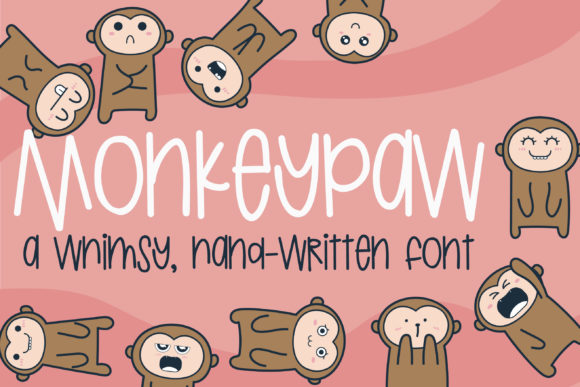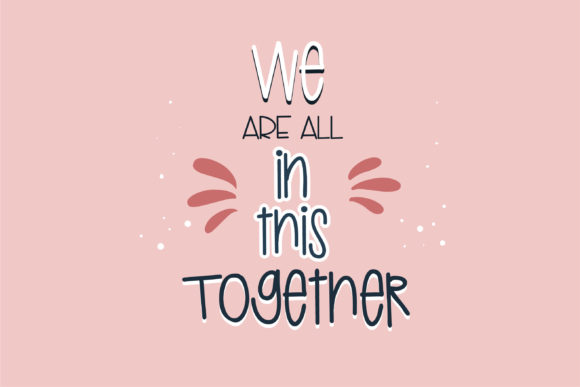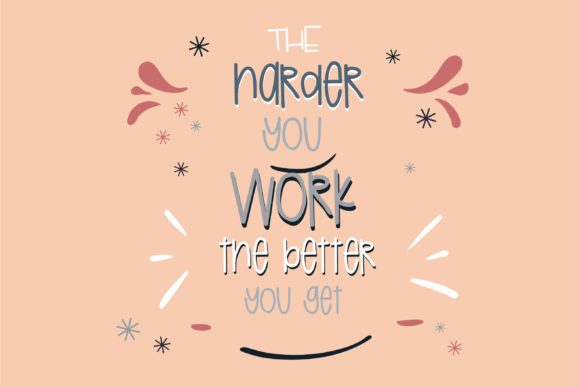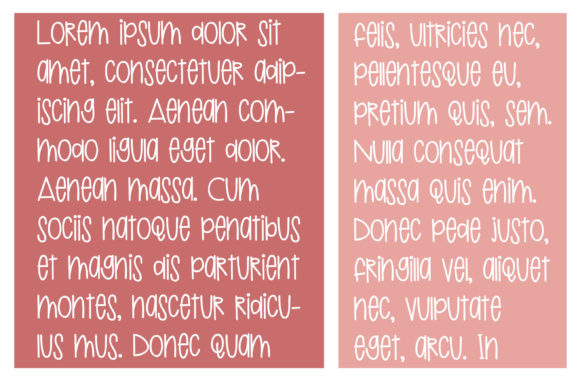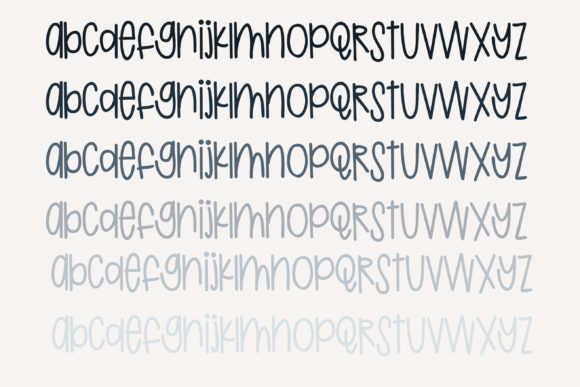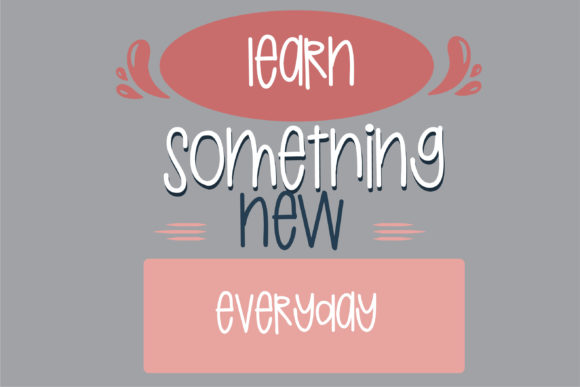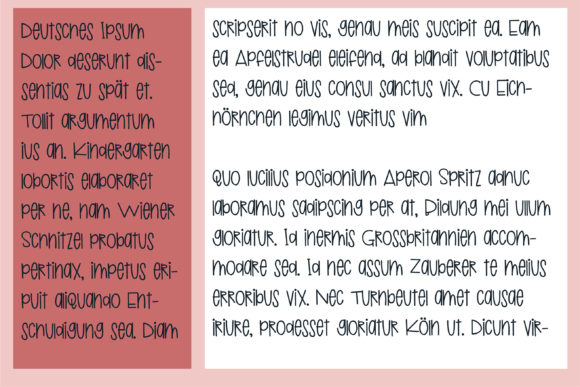
Monkey Paw Font
About Monkey Paw Font
This youthful handwritten font exudes a whimsical and fun essence, making it the perfect choice for a wide range of creative projects related to children, school, or anything that requires a vibrant and youthful vibe. The playful and carefree design of the font adds a touch of joy to your creations, capturing the spirit of youthfulness.
Whether you’re working on educational materials, children’s books, or playful graphics, this font brings a lighthearted charm that resonates with a younger audience. Its handcrafted and informal style creates an approachable and friendly feel, making it easy to connect with children and those who appreciate a cheerful aesthetic.
The versatility of this handwritten font shines through in its ability to adapt to various contexts. From classroom resources to children’s party invitations, the font’s whimsical nature enhances the overall visual appeal, bringing a sense of energy and playfulness to every project.
Its youthful charm also makes it suitable for digital designs, adding a lively touch to social media graphics, websites, or any online content targeted at a youthful audience. The font becomes a visual storyteller, conveying a sense of fun and creativity that resonates with the spirit of childhood.
In summary, this youthful handwritten font is not just a typographic choice; it’s a design asset that injects a dose of whimsy and playfulness into your creations. Perfect for children-centric projects, educational materials, or anything that requires a youthful vibe, this font is a go-to option for those seeking to infuse their designs with a sense of joy and youthful energy.